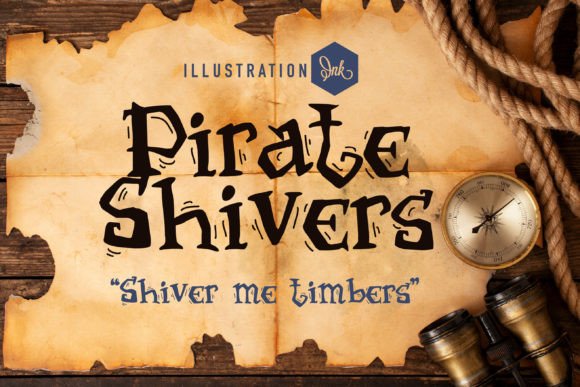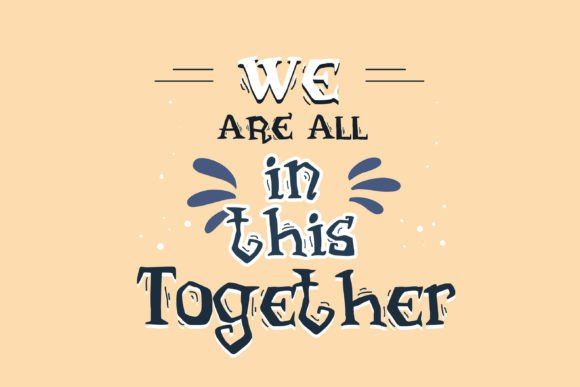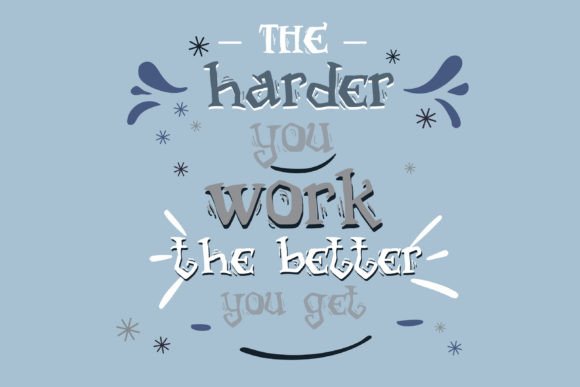
This hand-crafted whimsical font has a pirate feel and “shivers” throughout.
Pirate Shivers is a fun, handmade font that looks like it’s from a pirate story. It has a playful pirate style and wavy, “shivery” lines that make it look unique and lively.